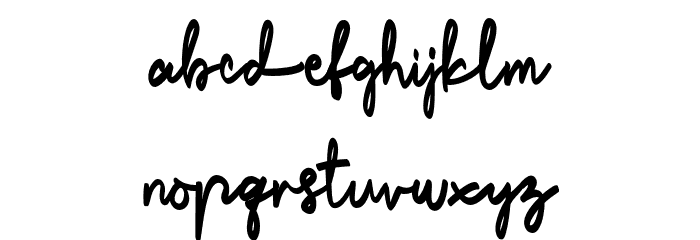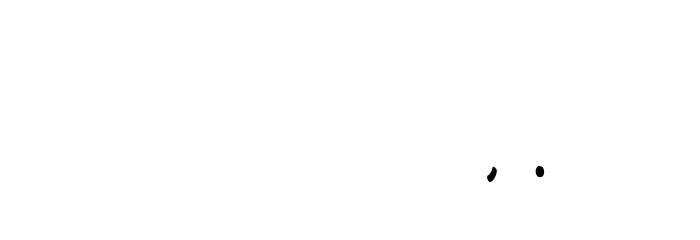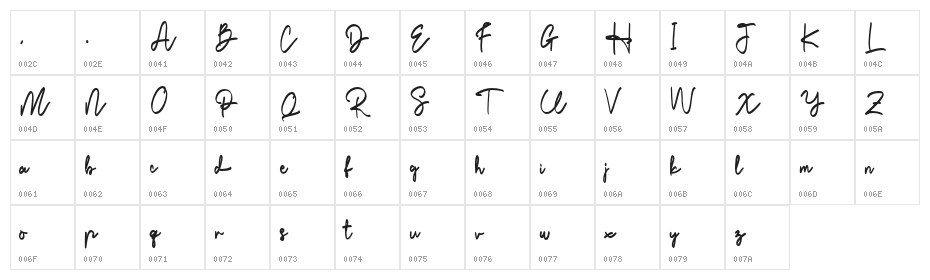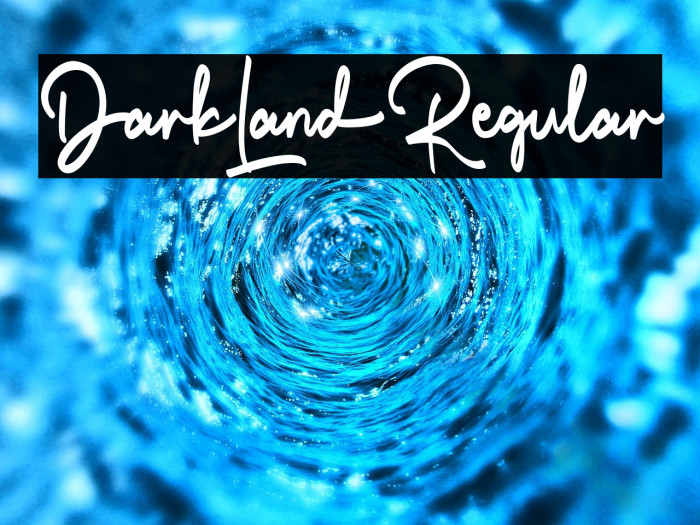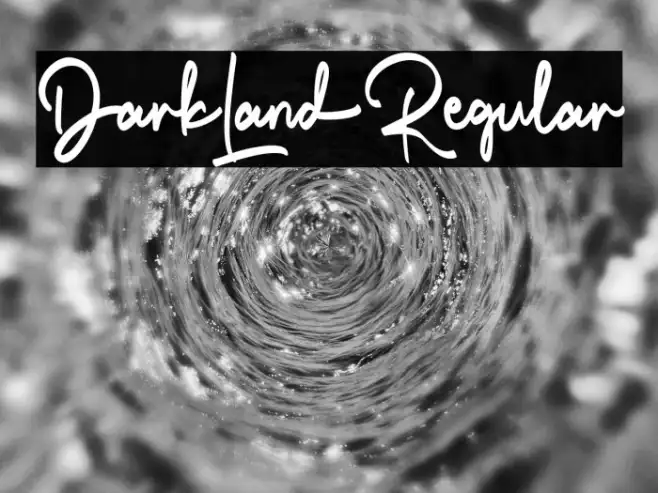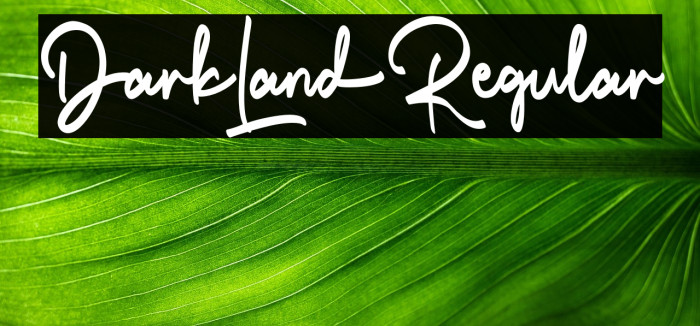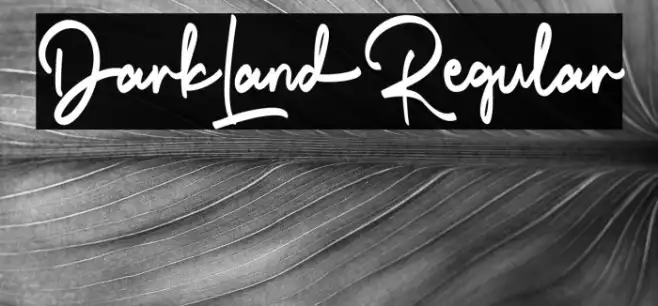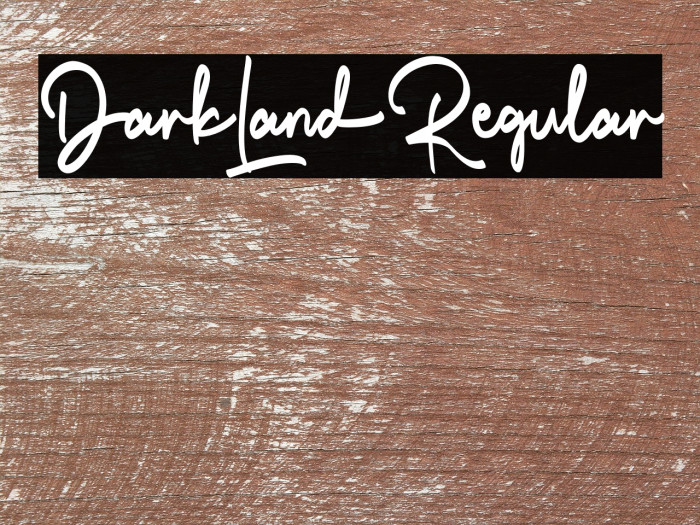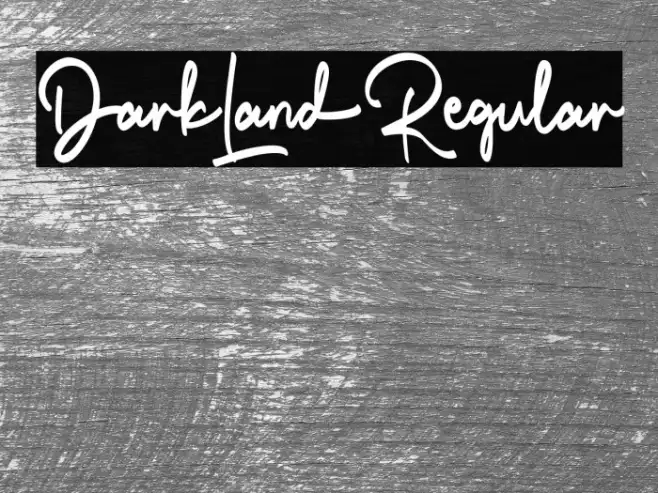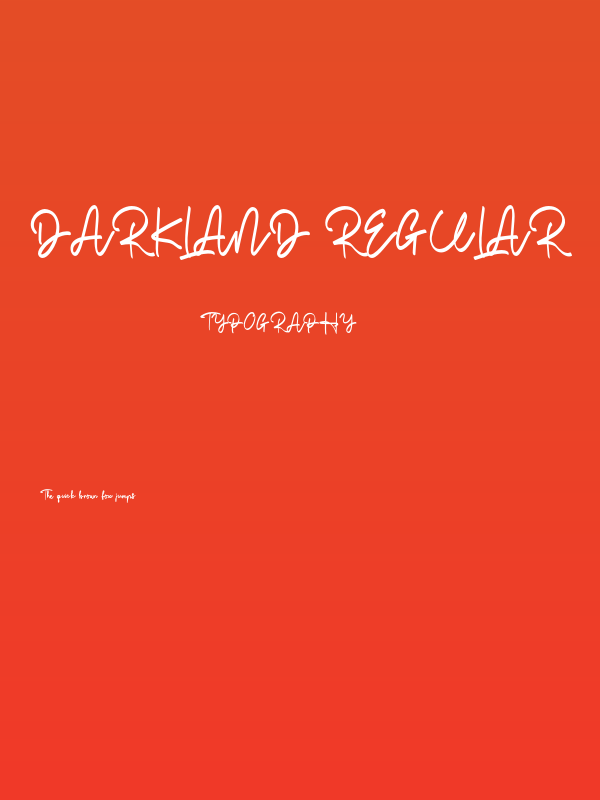
DarkLand-Regular Font
This font features a dynamic and expressive handwritten style, characterized by its fluid and cursive letterforms. The uppercase letters are bold and slightly slanted, giving a sense of movement and energy. The lowercase letters maintain a consistent flow, with smooth connections between characters, enhancing its script-like appearance. The font's overall look is casual yet elegant, making it suitable for projects that require a personal touch. The characters are well-spaced, ensuring readability while maintaining the artistic flair of the design.
A dynamic and expressive handwritten script font with fluid, cursive letterforms.
- Proposed Projects: Ideal for wedding invitations, greeting cards, personal branding, and creative projects that require a personal and artistic touch.
- Category: Handwritten
- Use Case: Logos, Headlines, Invitations